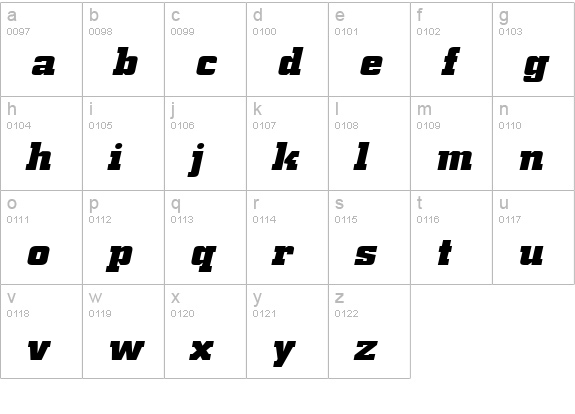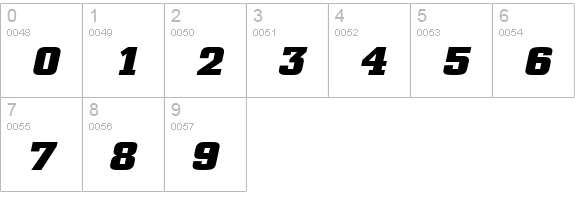
Borghs-Extended Italic is a distinctive, extended-width, italic variant in the Borghs typeface family \xE2\x80\x94 well suited to design and typography projects.
Borghs-Extended Italic font is a versatile and elegant typeface that exudes sophistication and style. With its elongated letterforms and subtle slant, this font adds a touch of flair to any design project. Whether used for headers, body text, or even logos, Borghs-Extended Italic is sure to make a statement. What's even better is that this font is available for free download at FontsMarket.com. So, you can easily add this stunning typeface to your collection without any cost. Don't miss out on the opportunity to enhance your designs with the timeless beauty of Borghs-Extended Italic font. Download it today and let your creativity soar!